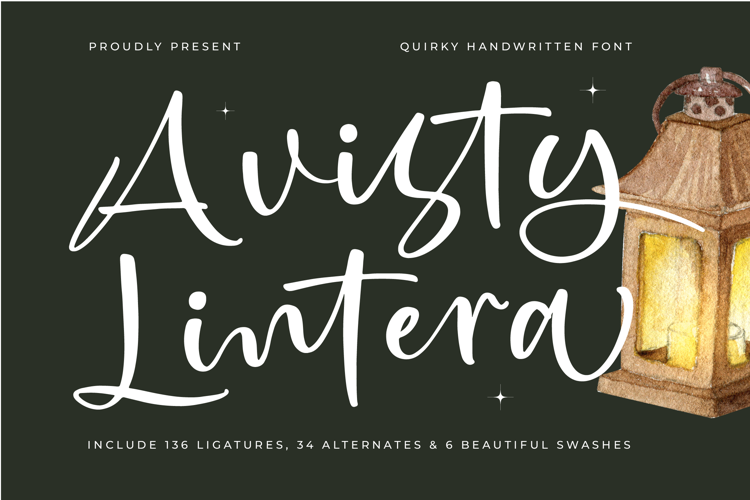
Avisty Lintera - Quirky Handwritten Font
Avisty Lintera - Quirky Handwritten Font is a beautifully flowing, contemporary script designed to mimic authentic hand lettering. Its spontaneous rhythm and slightly irregular baseline inject a powerful sense of authenticity and visual warmth into any project. The strokes feature a delightful balance of thick and thin lines, ensuring maximum readability while maintaining an upscale, artistic flair perfect for captivating audiences.
Ligature Alternates & Swashes